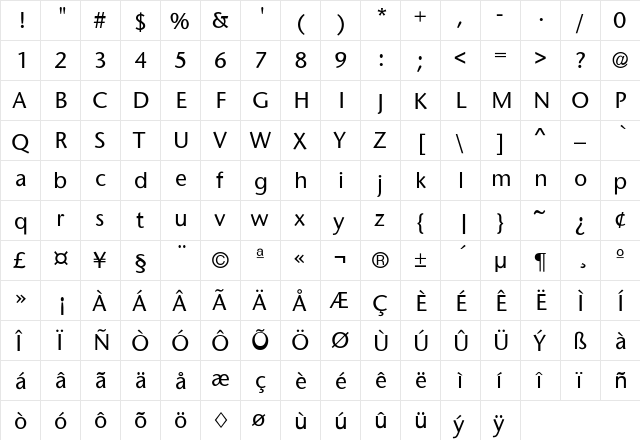
Pondeur Regular Font Preview
Pondeur Regular
Pondeur Regular Font Details
Design Context for Pondeur Typeface
Pondeur offers clean, dependable letterforms without strong stylistic allegiance, making it a practical choice for designers who need flexibility.